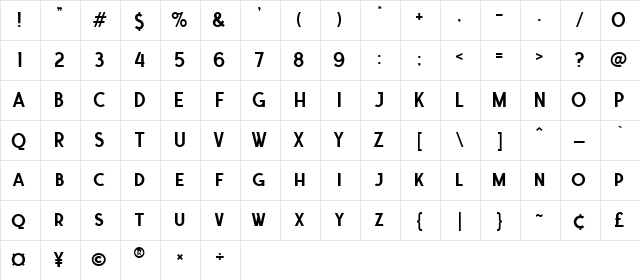
Ferghaus Sans Regular
Design Context for Ferghaus Sans Typeface
Ferghaus Sans offers clean, dependable letterforms without strong stylistic allegiance, making it a practical choice for designers who need flexibility.